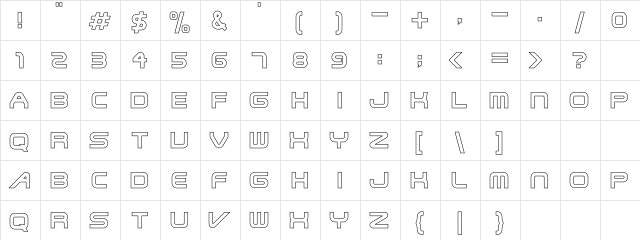
Steel Hollow Regular Free Font
Steel Hollow Regular
Design Context for Steel Hollow
Steel Hollow is a composed and adaptable typeface that performs quietly and consistently across a wide range of design contexts.